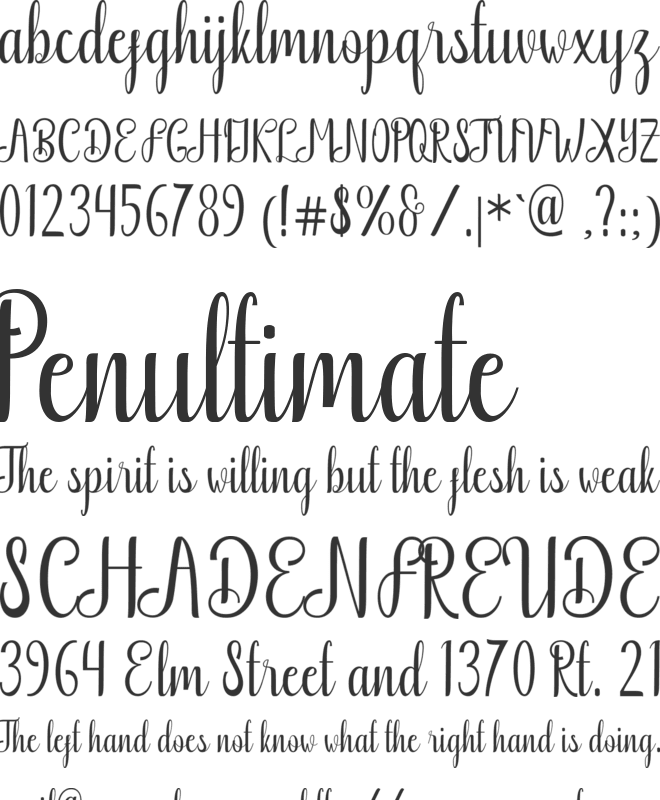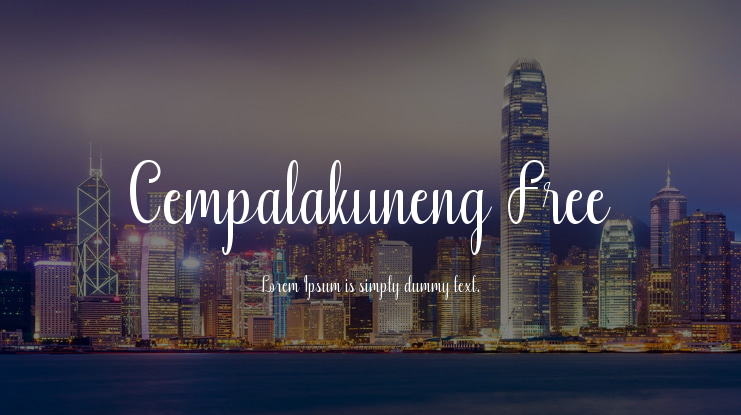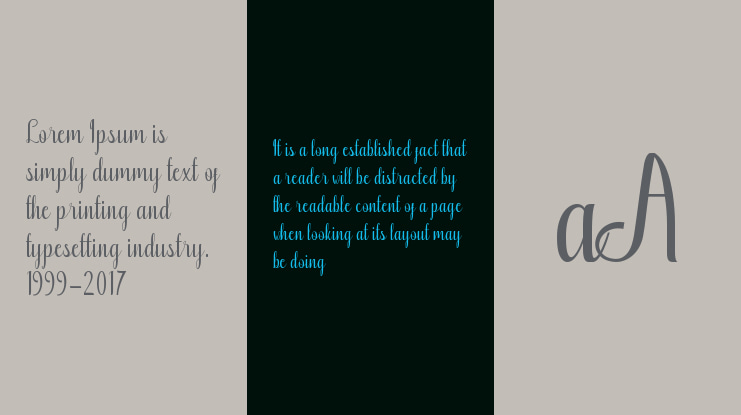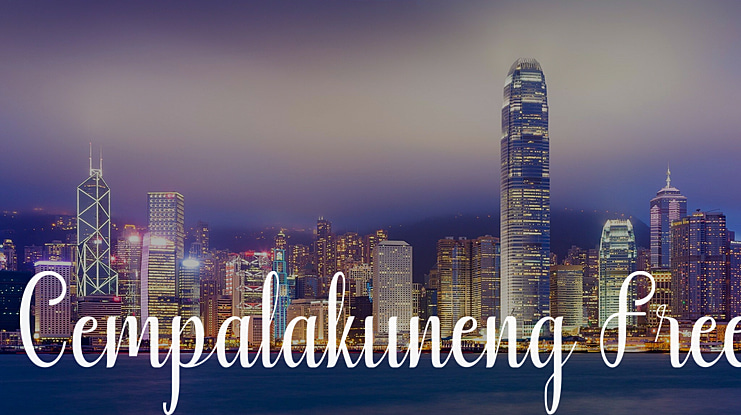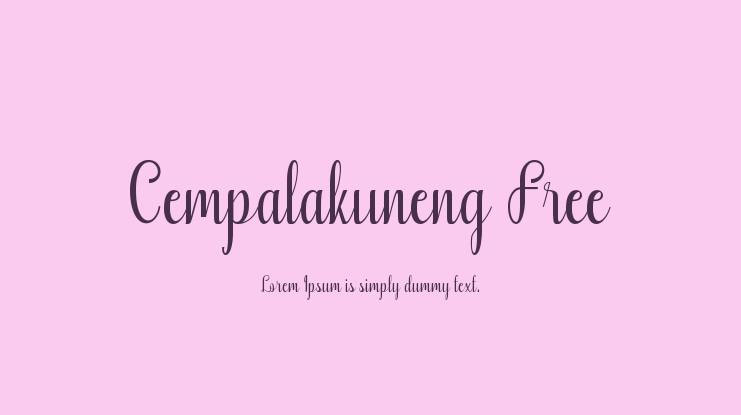
Cempalakuneng Free Font
Cempalakuneng is a script font that has the characteristic handwriting, it is very suitable to make certain label and event business and you could be using for a unique piece. Visit here to get full version